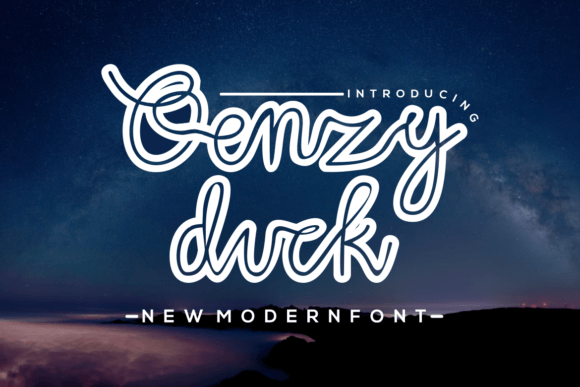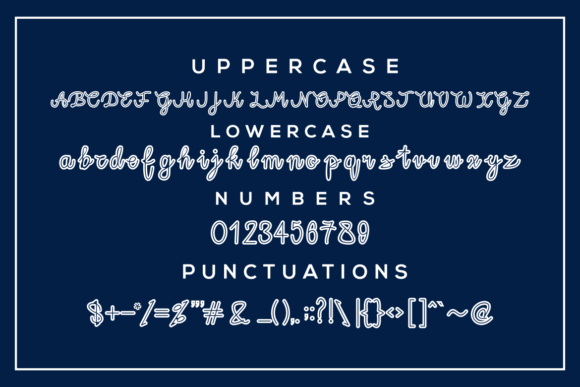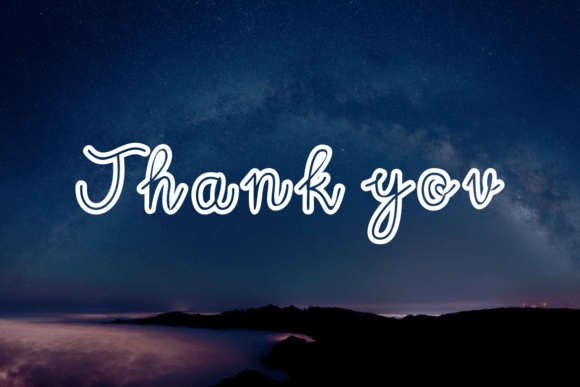
Introduction to Qenzyduck Font Font
Fonts play a crucial role in design, and the Qenzyduck Font font is a typeface that brings both character and versatility to any project. Whether you’re working on a branding project, a website, or a print design, the Qenzyduck Font font offers a unique style that can elevate your work.
Qenzyduck is a modern handwritten font that feels beautiful classy, elegant, and modern.
This font is perfectly suited for a wide variety of projects, such as signature, stationery, logo, wedding, typography quotes, magazine or book cover, website header, clothing, branding, packaging design, and more .
Key Features of Qenzyduck Font Font
Why Choose Qenzyduck Font Font?
The Qenzyduck Font font is more than just a typeface – it’s a design tool that helps you communicate your message with style and clarity. Its unique character set and versatile design make it suitable for a wide range of applications, from elegant invitations to bold headlines.
With its carefully crafted letterforms and balanced proportions, the Qenzyduck Font font ensures readability and visual appeal across all mediums.
What makes Qenzyduck Font font special?
The Qenzyduck Font font stands out with its unique design, exceptional readability, and versatility across various design applications.